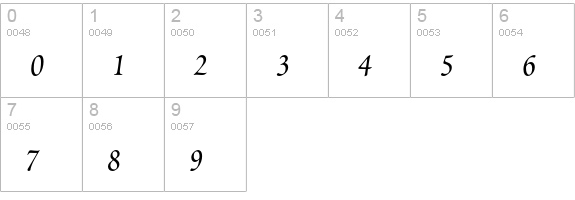
Poetica Chancery Expert Font Details
Poetica Chancery Expert font is a beautifully crafted typeface that exudes elegance and sophistication. Its intricate letterforms and graceful curves make it the perfect choice for projects that require a touch of refined beauty. The delicate serifs and flowing strokes of this font create a sense of timeless charm and artistic flair. Designed for those who appreciate the art of calligraphy and the beauty of handwritten script, Poetica Chancery Expert font is a versatile typeface that can be used for a variety of design applications, from wedding invitations to branding materials. And the best part? Poetica Chancery Expert font is available for free download at FontsMarket.com, making it accessible to everyone who wants to add a touch of class to their designs. So why wait? Download Poetica Chancery Expert font today and elevate your projects with its exquisite beauty and sophistication.